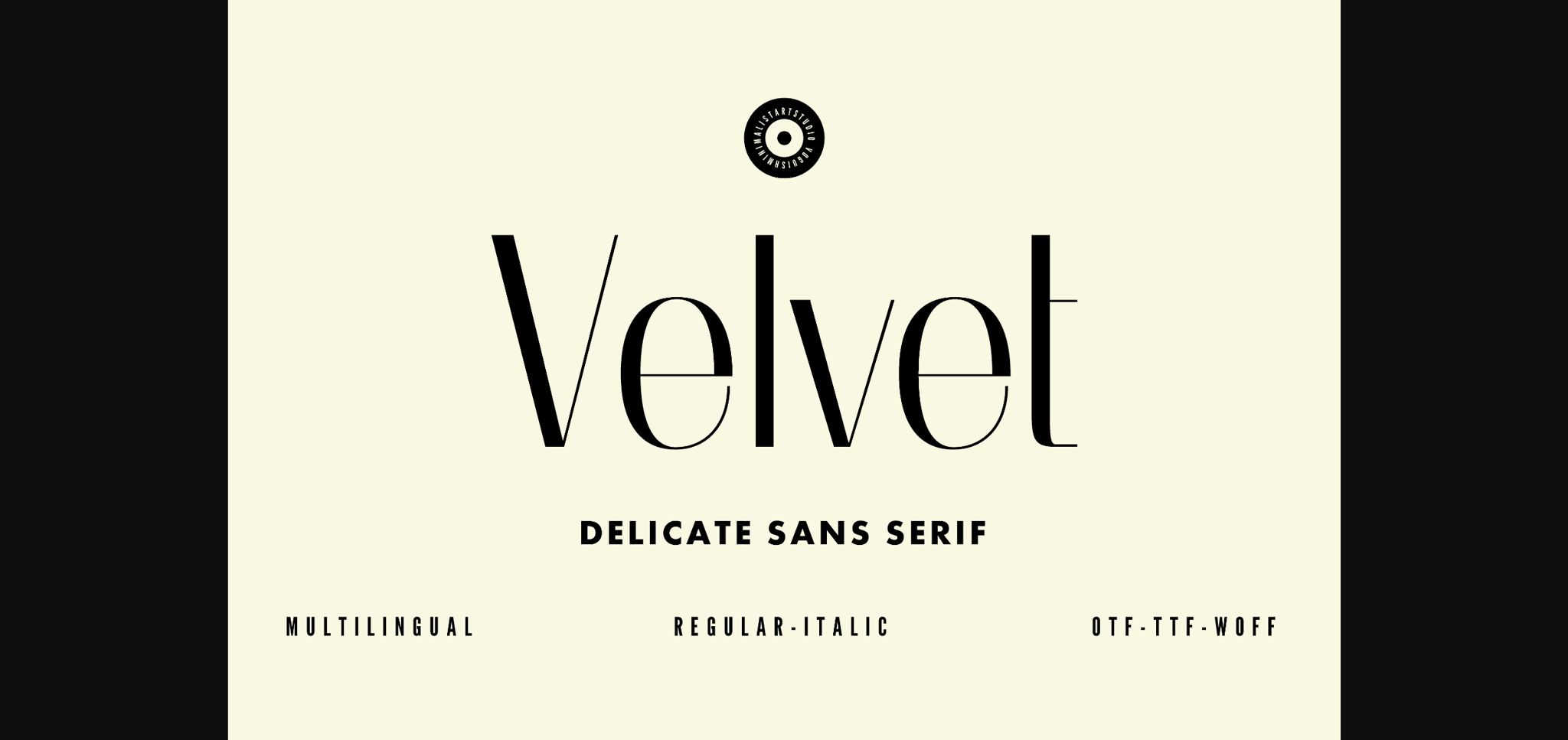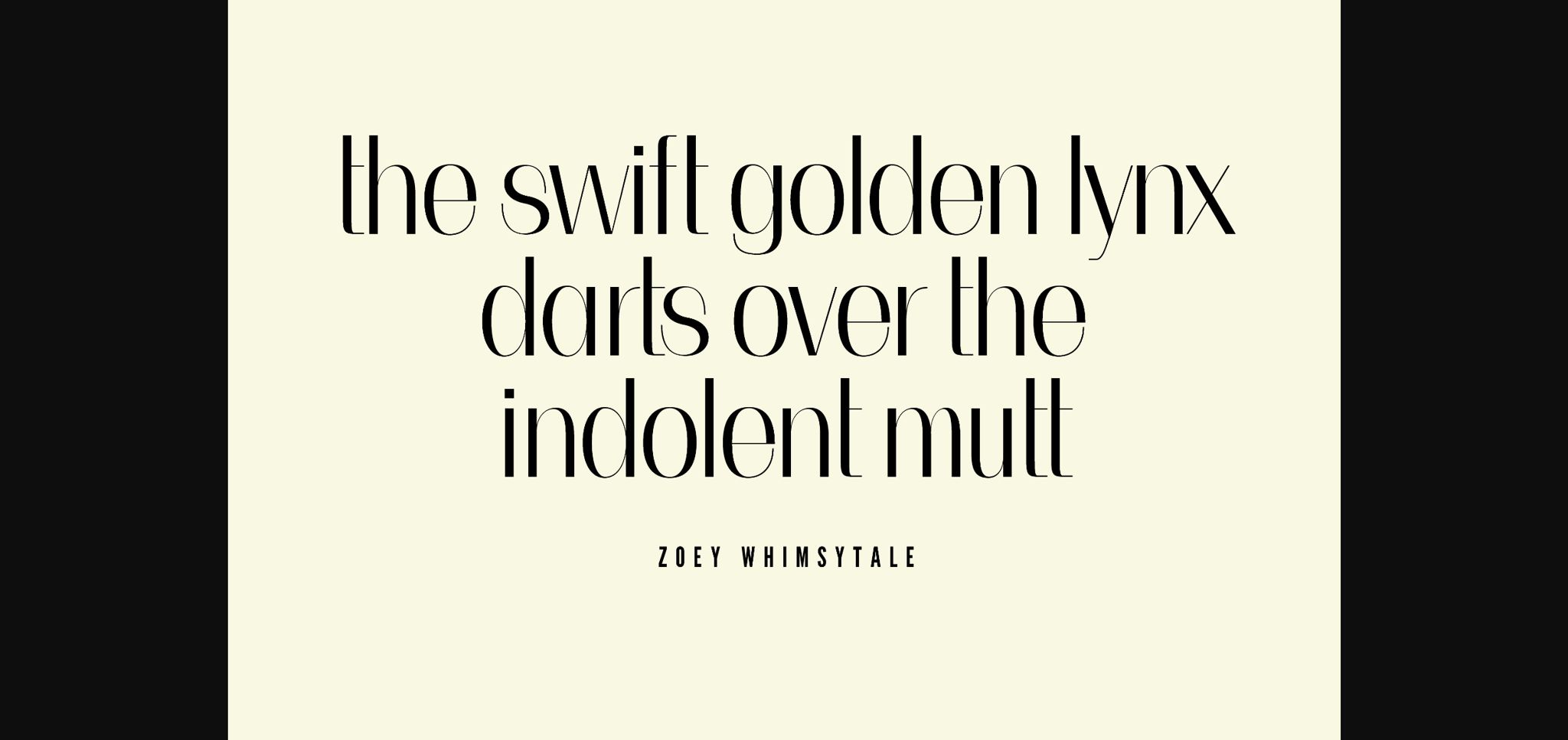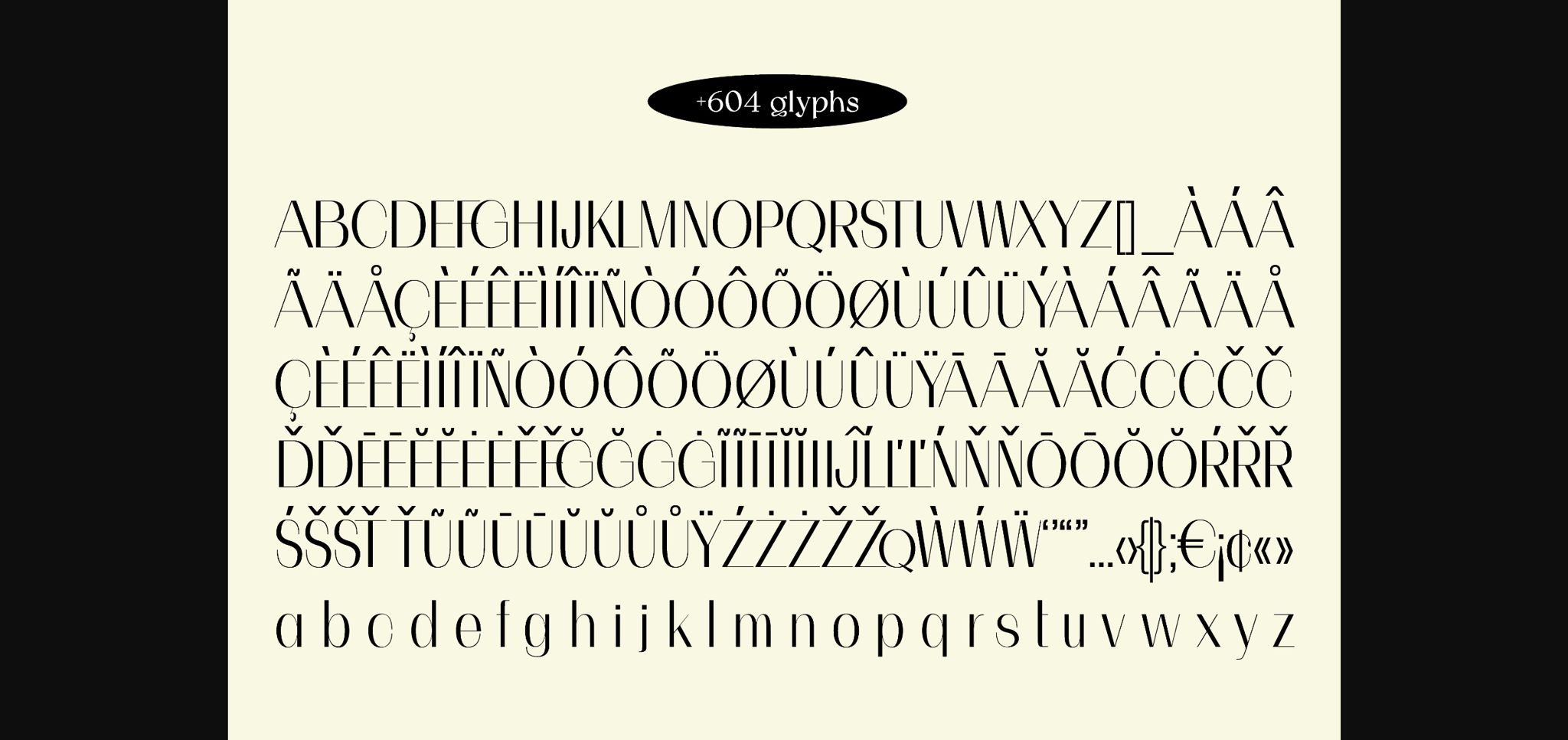
About Velvet Font
Discover ‘Velvet,’ the epitome of modern chic and timeless elegance. This delicate and minimalist sans serif typeface seamlessly blends sophistication with contemporary aesthetics, making it perfect for any design project. With its clean lines and versatile appeal, ‘Velvet’ enhances readability while exuding an air of luxury. Elevate your creative visions with this sleek and captivating font, leaving a lasting impression on your audience. Embrace the beauty of simplicity and unlock the full potential of your designs with ‘Velvet’ today!